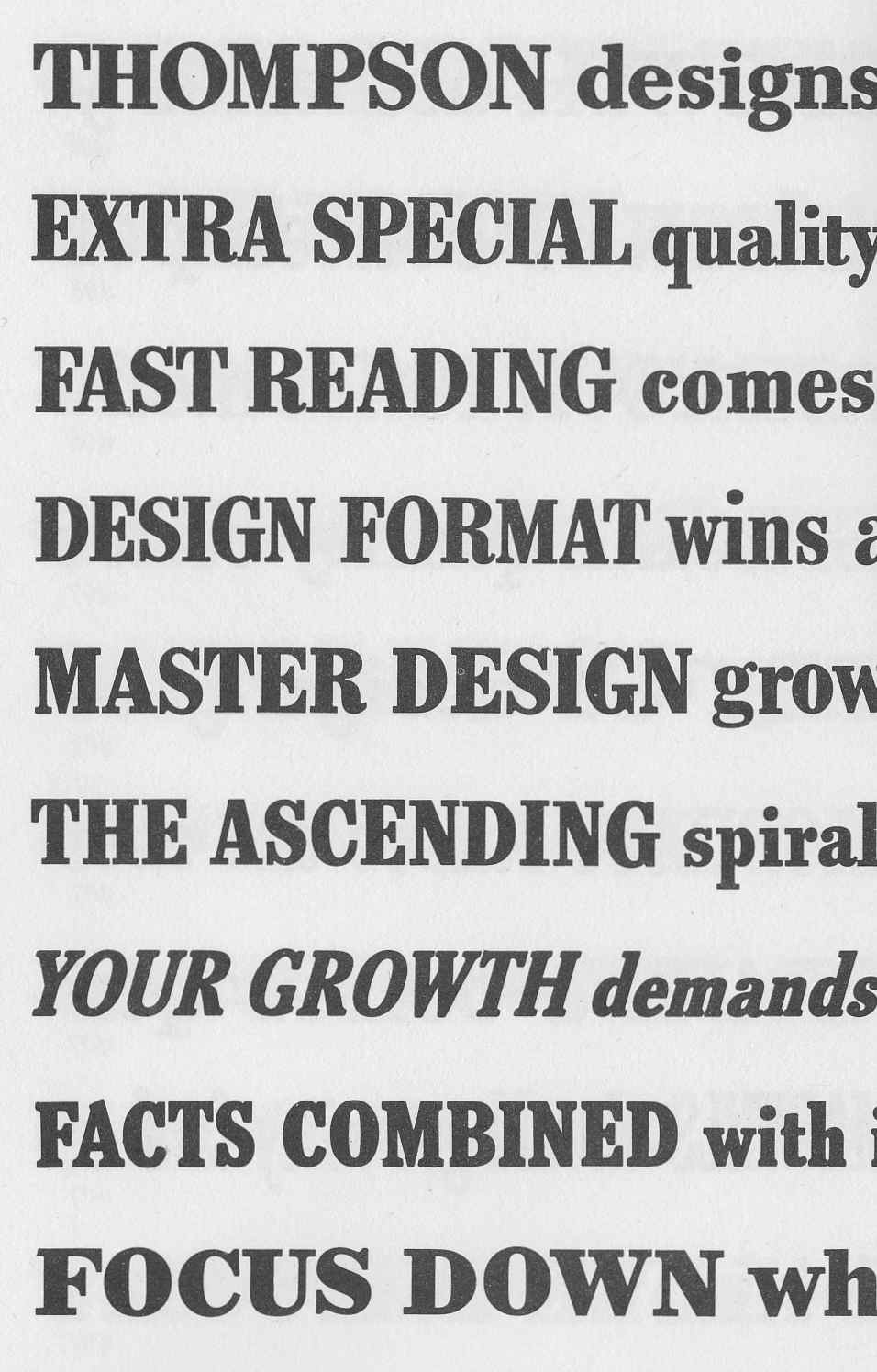
Tom Hall assigned the poster project to me. The poster specifications were 19 x 24 inches and printed in two colors.
Below is a the first concept sketch which was rendered in markers. The image area measured 10.5 by 14 inches. The logo lettering was based on the wood type fonts French Clarendon and Egyptian Ornamented from the book, Wood Type Alphabets: 100 Fonts (1977). The illustration was a street scene filled with people and Mill Avenue storefronts. In the sky was the sun. At the bottom was a panel for the names of the merchants.
In the second concept the logo was loosely based on the font Cheltenham. Below it was a ribbon to be filled with information about the fair. The illustration showed more detail of the street scene plus the addition of a hot-air balloon. The bottom panel had a rendering of the type treatment for MAMA. The image measured 19 by 24 inches.
These two concept sketches were presented at a regularly scheduled class where progress reports were made by workshop members on their assignments. I stated my preference for the second concept. And I asked for help with the illustration. Dave Redding volunteered.
The logo lettering artwork measured 5.0625 by 17 inches. A transfer type (whose name I don’t recall) was used on the ribbon for “ARTS & CRAFTS FAIR” and “DEC. 3 • 4 • 5 10 AM–DUSK”.
A photostat was made of the logo and pasted on the back of the original art which was inadvertently trimmed. (The image area is 4.1875 by 14.5 inches.) The Cooper Black font was used for “7TH ANNUAL” and pasted to the ribbon (below).
At some point MAMA representatives approved the design and the poster went into production. The lettering, illustration and type were pasted on a large board which was known, in the trade, as a mechanical. An overlay gave color instructions to the printer. Black and orange inks were used on the goldenrod paper stock. I don’t recall the printer but it was done locally, possibly at Temple Daily News or Little Wonder Press.
Fonts from the ITC Korinna family were used for the bottom panel.
| Detail of poster credits |
My logo continued to be used at subsequent fairs. Below are a belt buckle (2.25 by 3.75 inches; purchased on eBay) from the 1978 fair and t-shirts from 1977 and 1980.